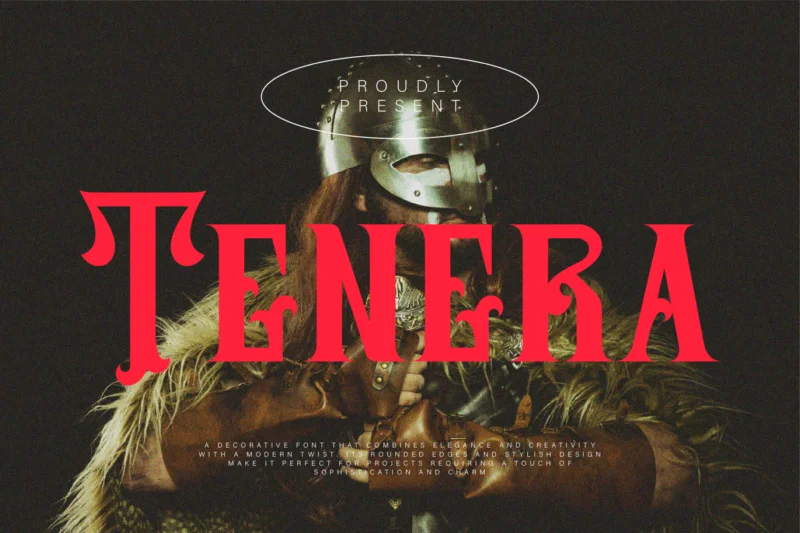
Tenera – Decorative Font
Tenera is a decorative font that combines elegance and creativity with a modern twist. Its rounded edges and stylish design make it perfect for projects requiring a touch of sophistication and charm. The font’s distinctive characteristics blend boldness and delicacy, making it versatile enough for both contemporary and vintage-themed designs. Whether used for branding, packaging, or promotional materials, Tenera stands out with its unique appeal, adding an artistic flair to any design.